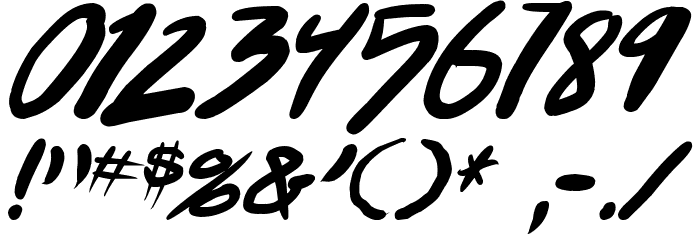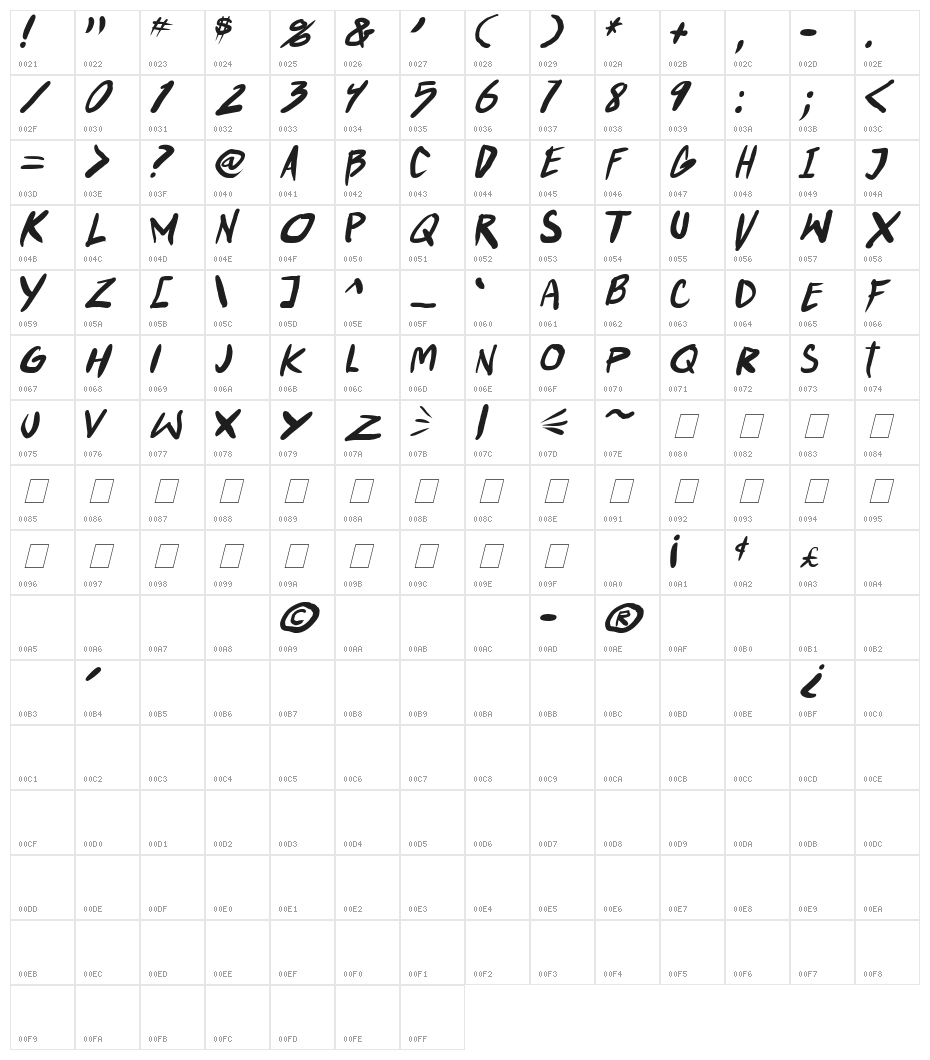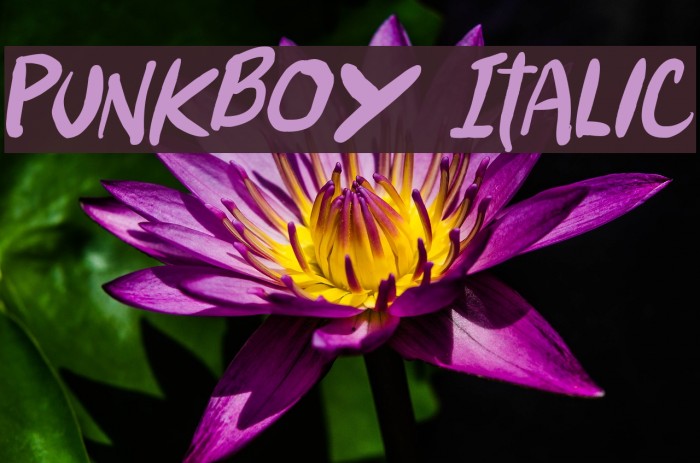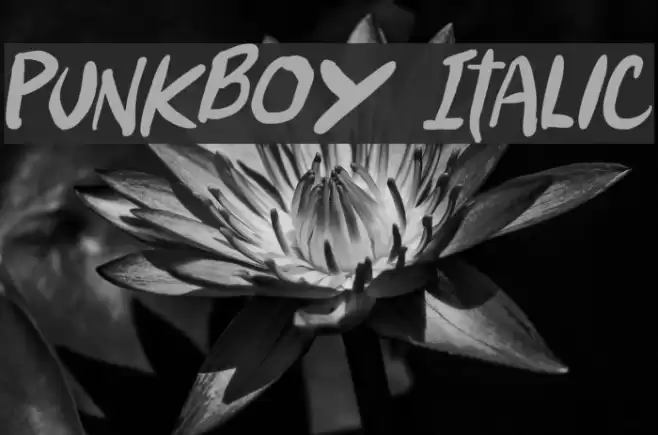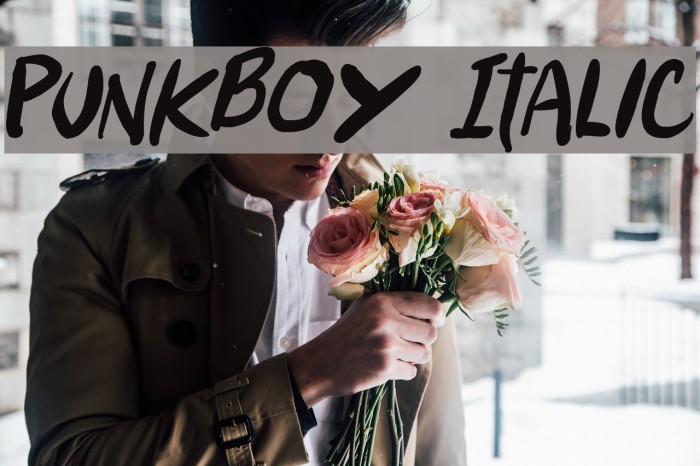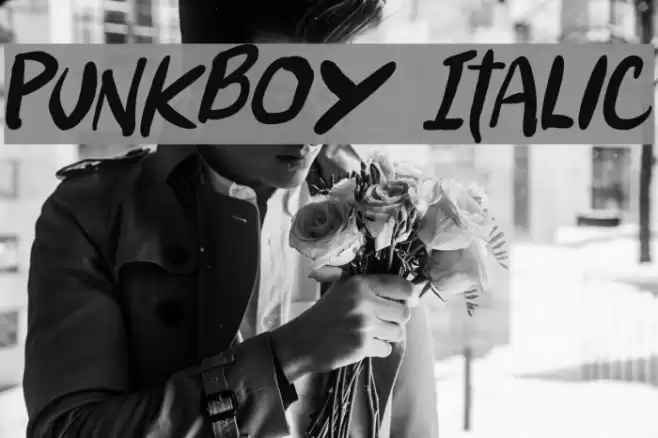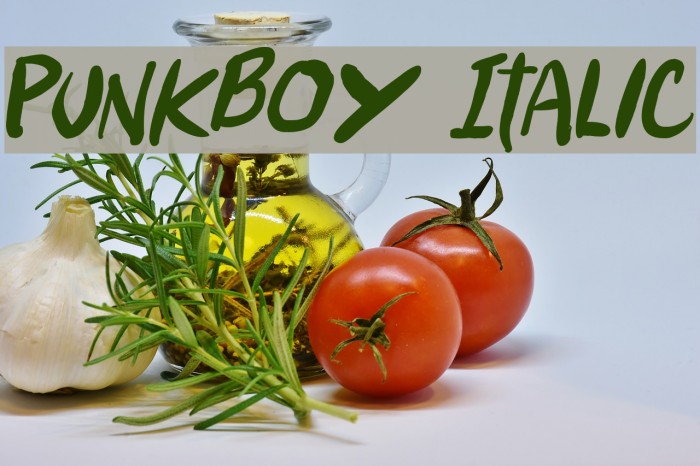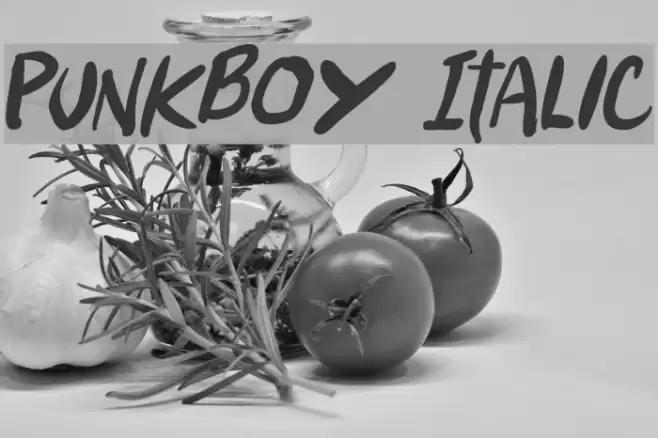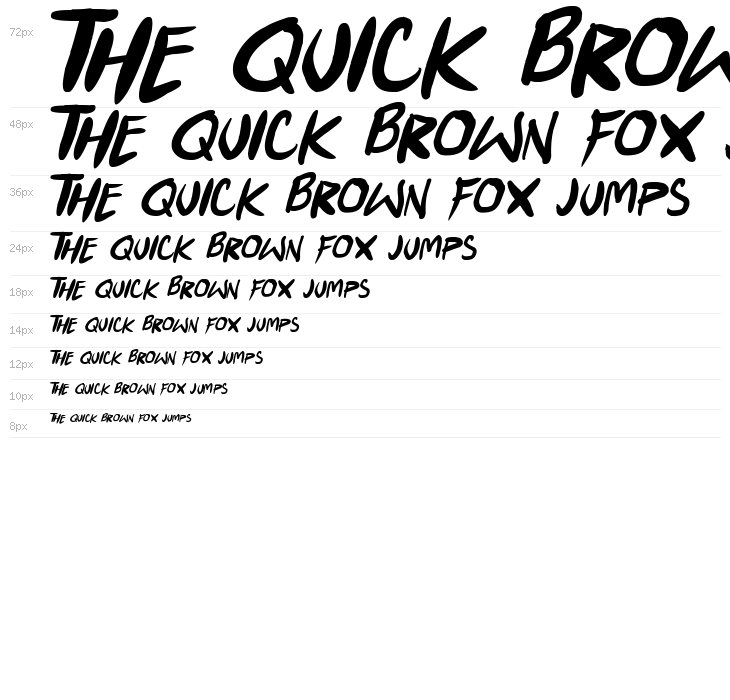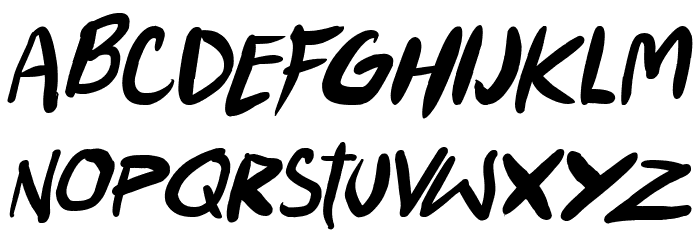
Punkboy Italic Font
Punkboy Italic Description
This font exudes a rebellious and energetic vibe, characterized by its bold and dynamic strokes. The letters are slanted, giving it an italicized appearance that enhances its edgy and unconventional style. The uppercase and lowercase letters maintain a consistent flow, with sharp angles and irregular shapes that suggest movement and spontaneity. The numerals and special characters complement the overall aesthetic, adding to its distinctive and bold personality. This font is perfect for projects that require a strong, impactful visual presence.
| Overall Style | Modern, Edgy |
| Proposed Projects | Ideal for music album covers, streetwear branding, event posters, and edgy editorial designs. |